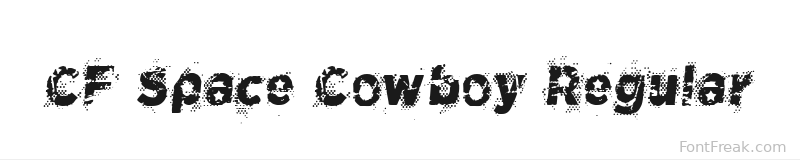
CF Space Cowboy Regular
About CF Space Cowboy Regular
The CF Space Cowboy Regular font, created by Cloutierfontes, is a distinctive display typeface that infuses a sense of adventure and whimsy into any design project. Characterized by its playful, rugged aesthetic, this font features a unique combination of uneven stroke weights and a textured appearance that evokes a sense of the wild west, making it an excellent choice for designs that aim for a nostalgic or adventurous vibe. The letters are spaced thoughtfully to ensure readability while maintaining their artistic flair, allowing them to stand out without overwhelming the viewer.
This font is ideal for a variety of specific use cases. It can shine in designs such as movie posters, especially those with themes of adventure or science fiction, where it can capture the essence of exploration. Additionally, CF Space Cowboy Regular is perfect for restaurant menus, particularly those with a rustic or thematic dining experience, giving a hint of charm and character. It also works well for branding small businesses that want to convey a laid-back, approachable image, such as cafes or boutique shops. Graphic designers will find this font to be a versatile tool for creating eye-catching promotional materials or social media graphics that need a touch of personality.
Targeted towards graphic designers, small business owners, and content creators, CF Space Cowboy Regular offers a unique alternative to conventional typefaces. This font stands out due to its ability to blend fun with functionality, making it an engaging choice for any project. Whether you’re looking to create an inviting atmosphere or a bold statement, the CF Space Cowboy Regular font free download is a fantastic option that combines creativity with usability, ensuring your designs are memorable and impactful.